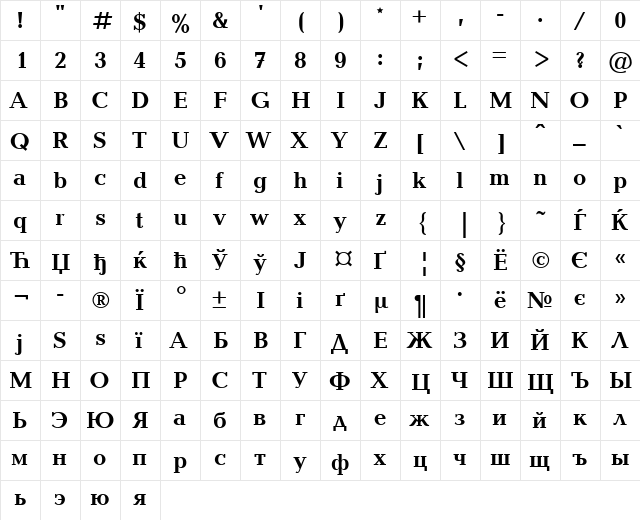
BalticaC Regular
Design Context for BalticaC Typeface
BalticaC offers clean, dependable letterforms without strong stylistic allegiance, making it a practical choice for designers who need flexibility.
Pro Tip: Use BalticaC in both headline and body roles to test its range before committing to a single application.